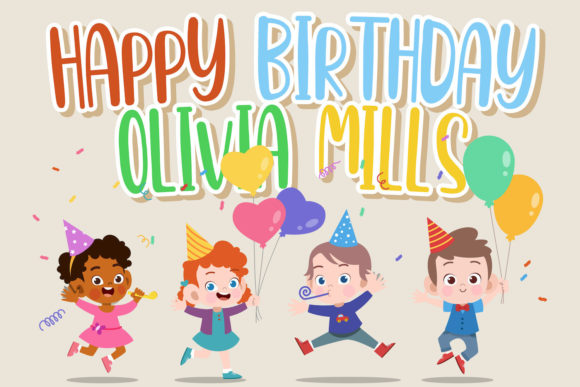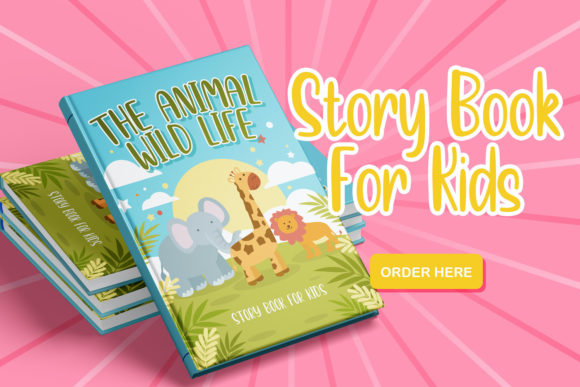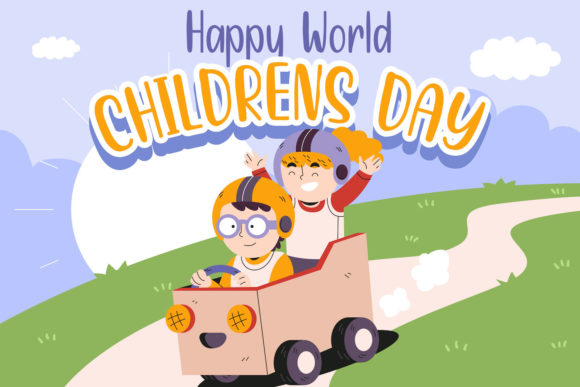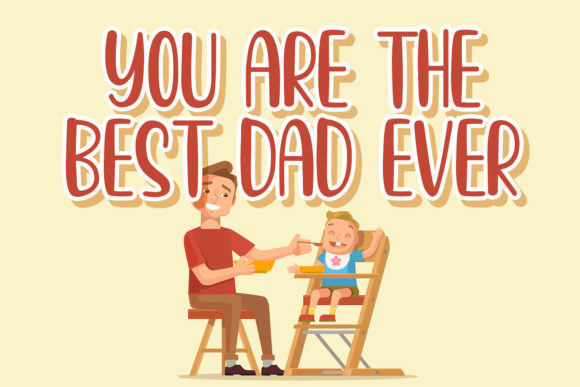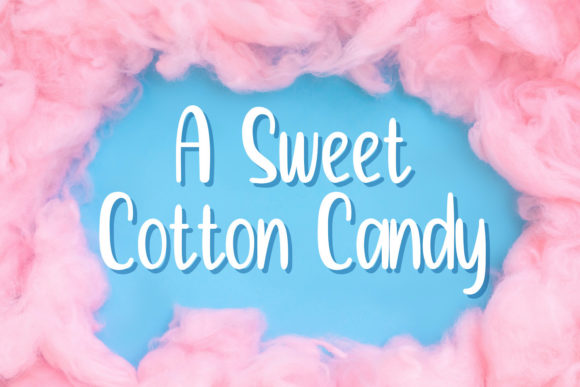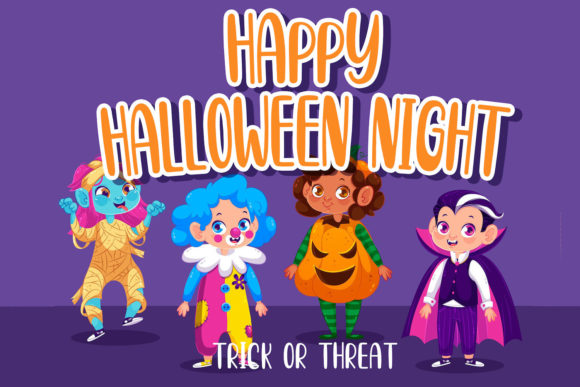
Candy Putri Font: The Sweetest Addition to Your Design Collection
Are you tired of using the same old fonts in your designs? Look no further! Introducing Candy Putri, a fun and playful display font that’s sure to add a touch of sweetness to your creations. Perfect for children’s designs, school projects, and any other creative endeavor, Candy Putri is a versatile font that’s sure to delight.
What Makes Candy Putri So Special?
Candy Putri is a unique and refreshing font that’s designed to bring a smile to your face. Its playful and fresh design makes it perfect for a variety of applications, from fun and colorful children’s designs to creative and imaginative school projects. With Candy Putri, you can add a touch of whimsy and personality to your work, making it stand out from the crowd.
Key Features of Candy Putri Font
- Playful Design: Candy Putri features a playful and fun design that’s sure to capture the attention of your audience.
- Fresh and Modern: This font has a fresh and modern look that’s perfect for designs that require a youthful and energetic feel.
- Versatile: Candy Putri can be used for a wide range of applications, from children’s designs to school projects and beyond.
- Easy to Read: Despite its playful design, Candy Putri is easy to read, making it perfect for use in titles, headings, and other creative applications.
- Children’s Designs: Use Candy Putri to create fun and colorful designs for kids, such as posters, flyers, and brochures.
- School Projects: Add a touch of personality to your school projects with Candy Putri. Use it to create eye-catching titles and headings that are sure to impress.
- Party Invitations: Create fun and playful party invitations with Candy Putri. Perfect for birthday parties, baby showers, and other celebrations.
- Social Media Graphics: Use Candy Putri to create eye-catching social media graphics that are sure to grab the attention of your followers.
Why Designers and Crafters Love Candy Putri Font
Candy Putri has quickly become a favorite among designers and crafters. Here are just a few reasons why:
- Unique Design: Candy Putri features a unique and refreshing design that’s sure to make your creations stand out.
- Versatile: Candy Putri can be used for a wide range of applications, making it a great addition to any design collection.
- Fun and Playful: This font is perfect for designers and crafters who want to add a touch of fun and personality to their creations.